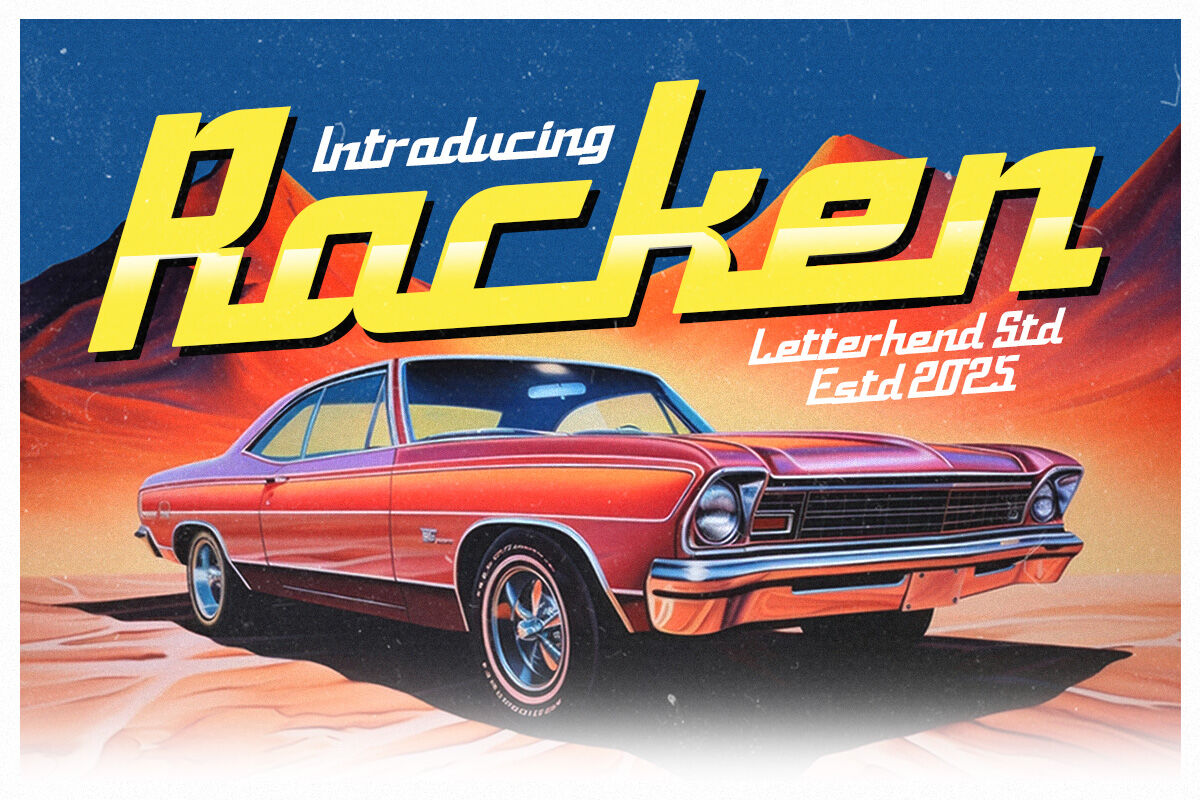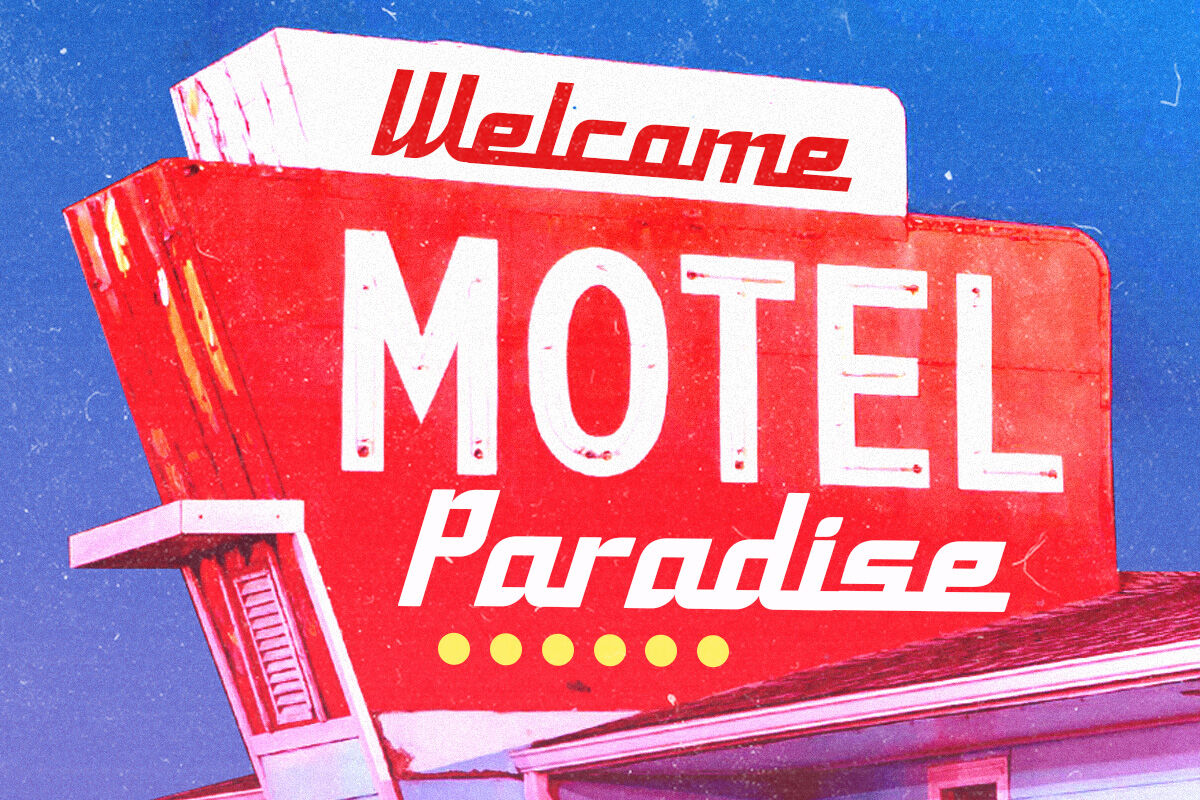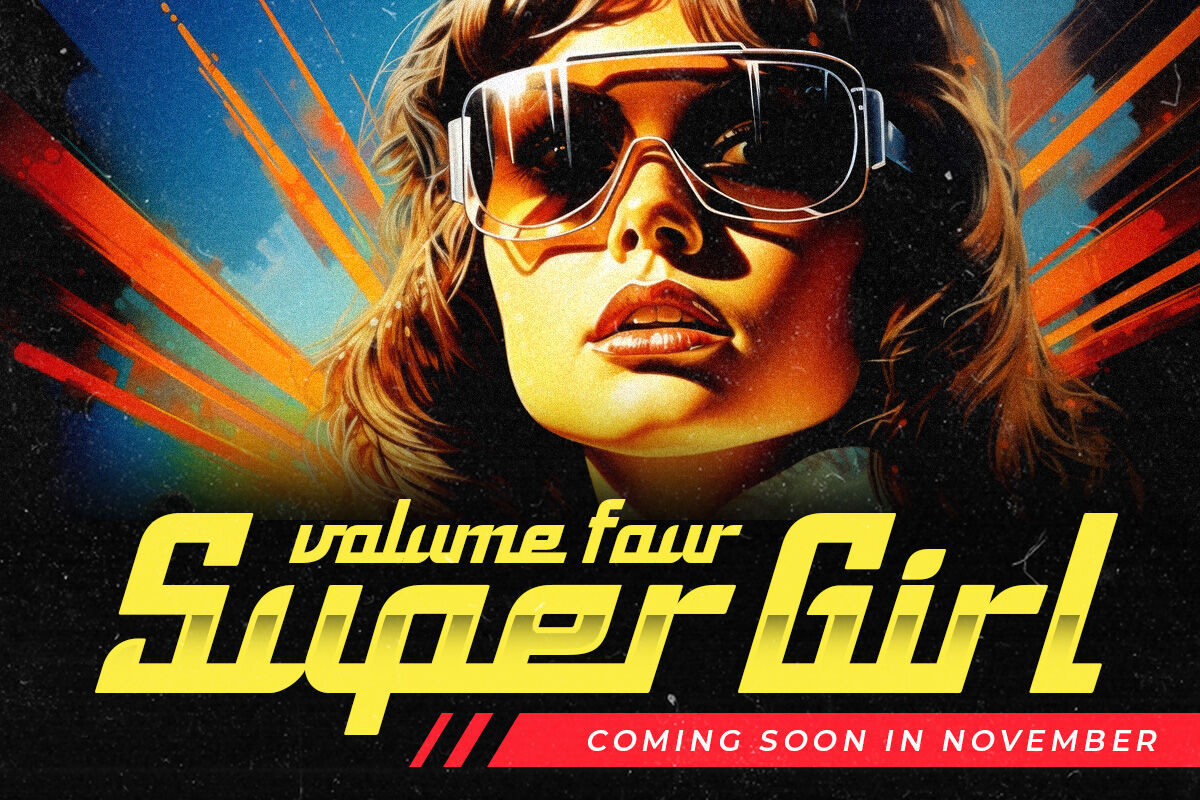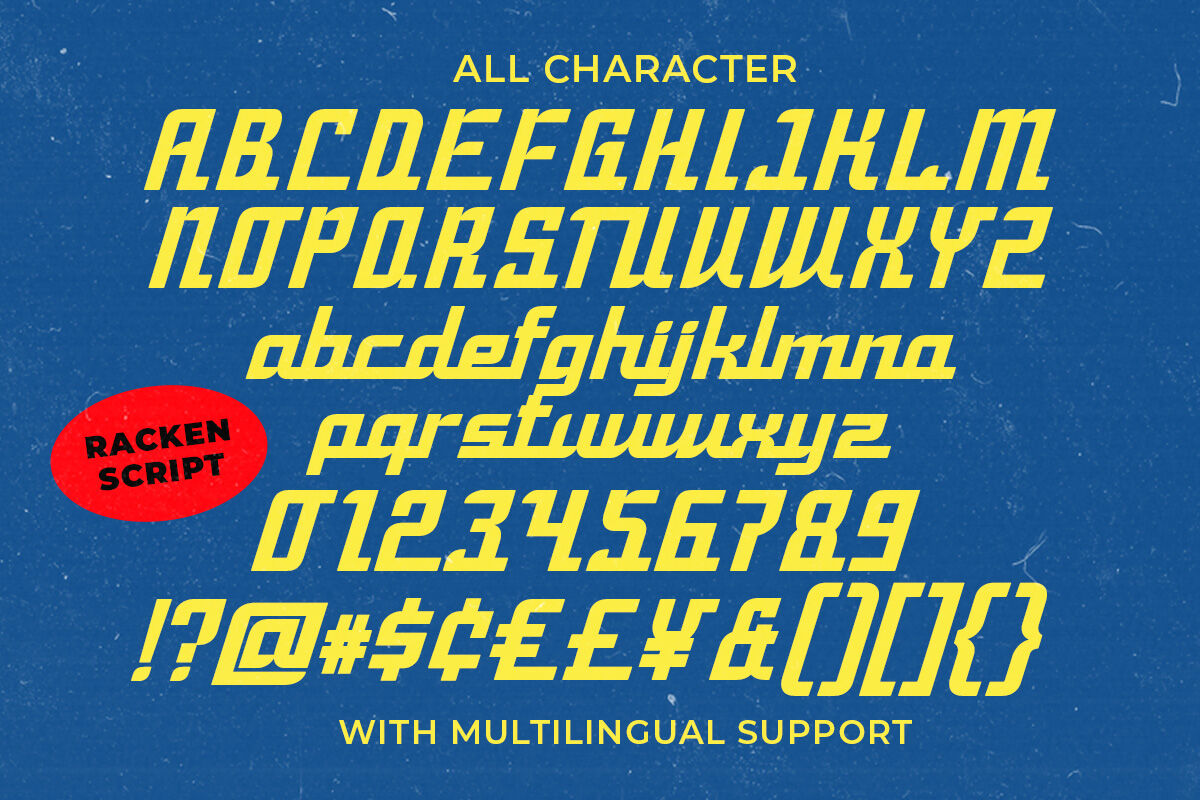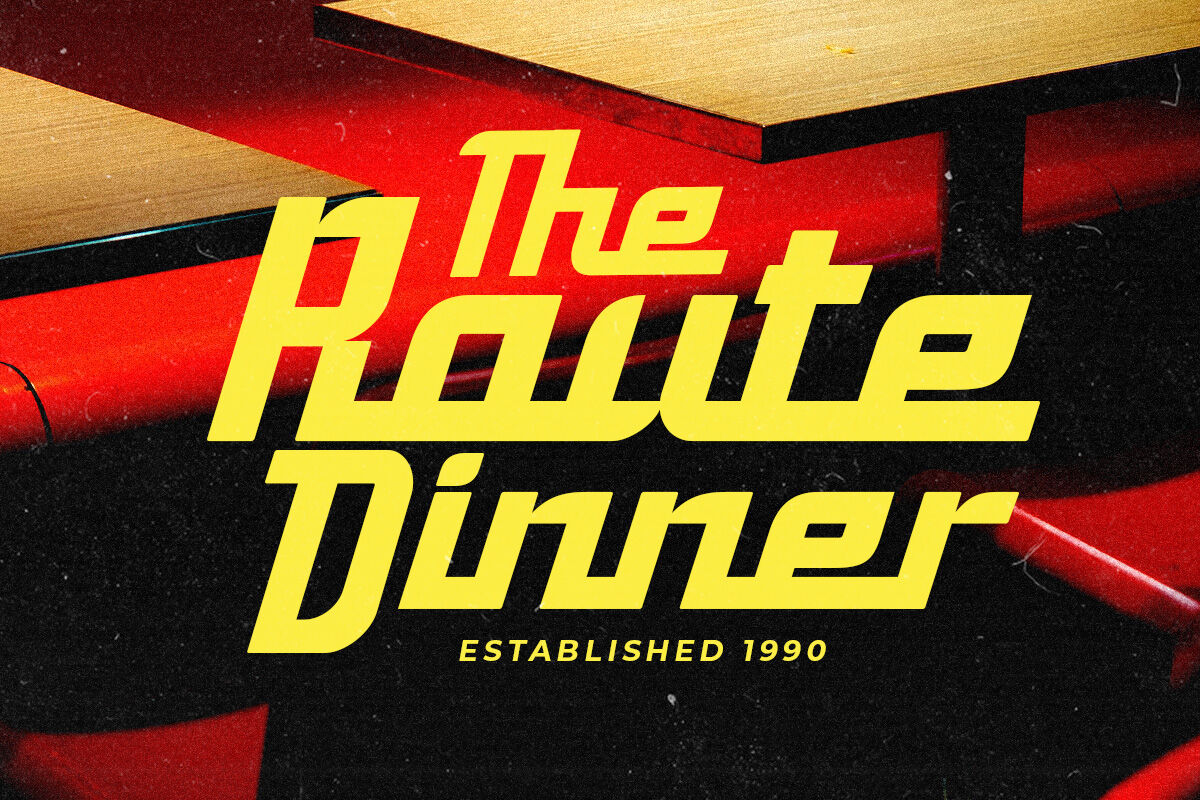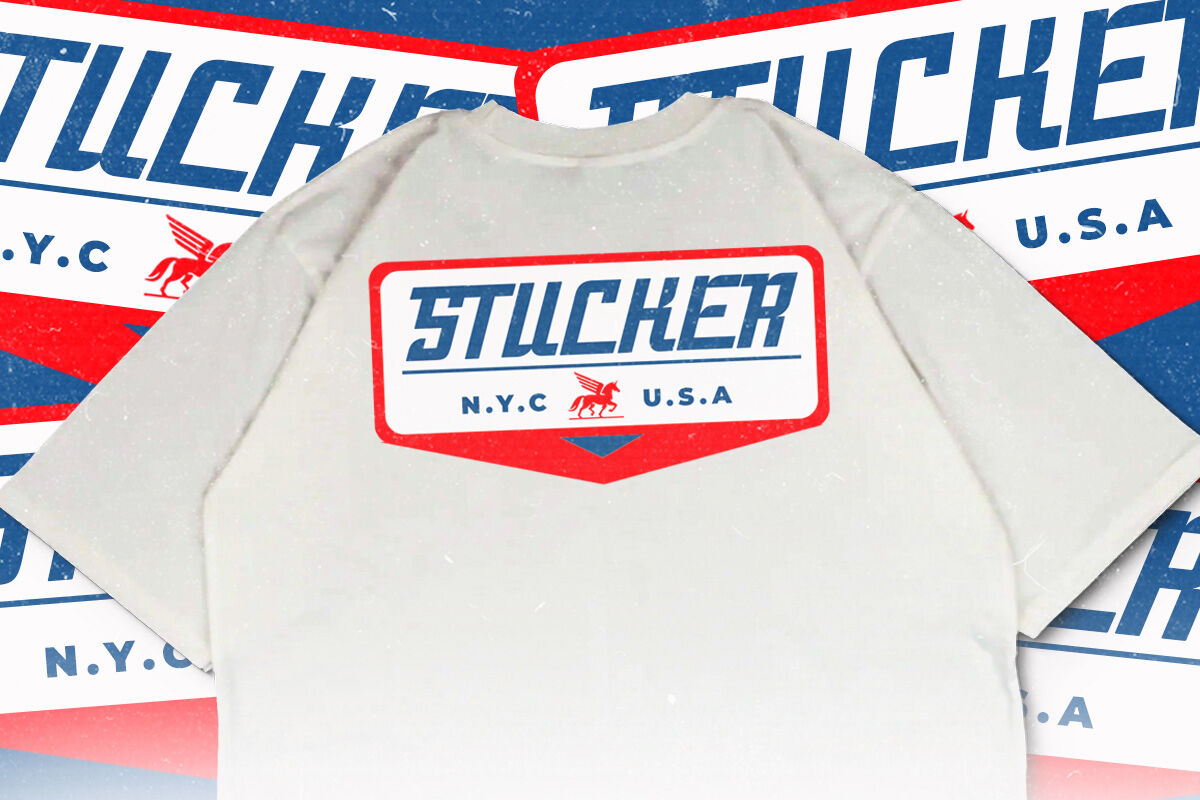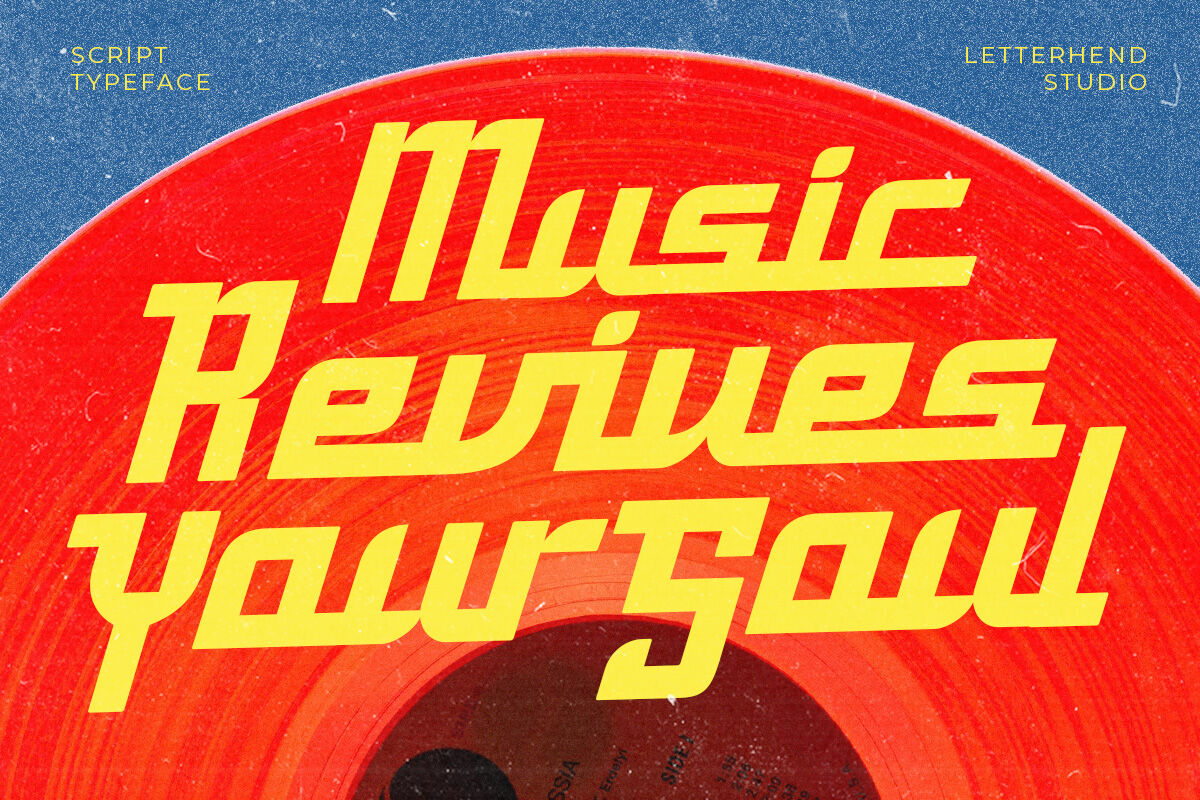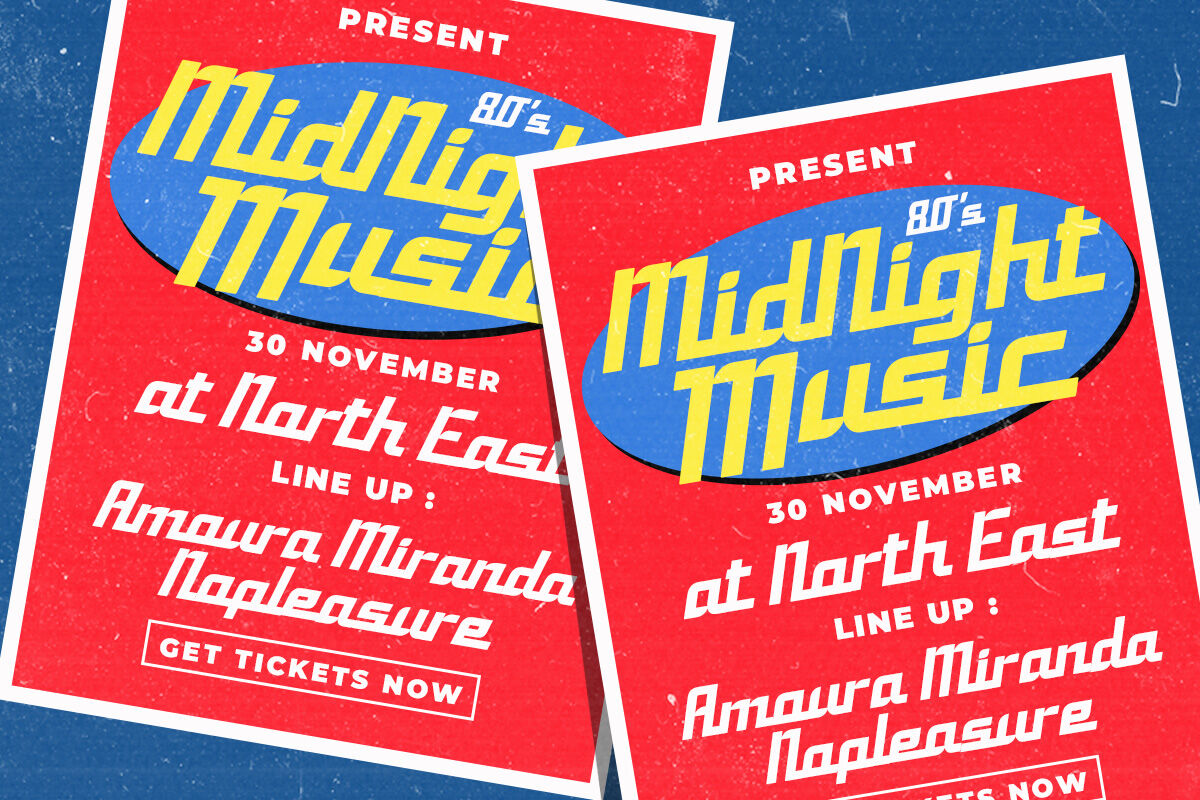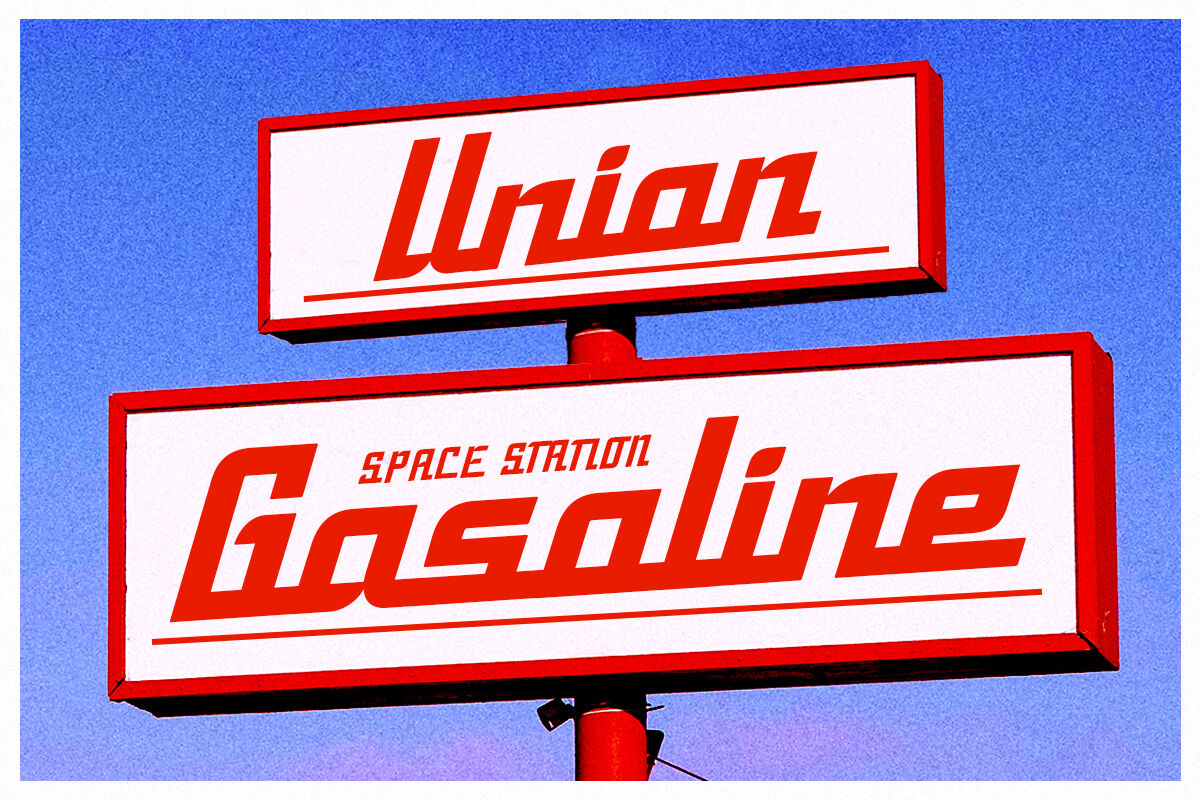
Racken Retro Futurism Display Font
Racken is a bold retro display font that captures the thrilling energy of vintage muscle cars and 80s speed aesthetics. With its sharp edges, slanted form, and dynamic letter shapes, Racken brings a sense of motion and power to every design. Perfect for projects that needs a bold and nostalgic punch. Features : Uppercase & lowercase Numbers and punctuation Alternates & Ligatures Multilingual Support PUA encoded Not sure if our font is right for your project? You can try it first with our "Type Tester" on the website, where you can preview all glyphs and special characters before buying. Check out this quick guide: www.letterhend.com/blog/using-alternate-character-in-type-taster/ If you encounter any technical issues, please refer to our QUICK HELP, available at this link: https://docs.google.com/document/d/e/2PACX-1vRPfENF30-kIQYFXVgWObdfAg4koF-UL5b_dFNlxa2YT_V9bx8Gs5KuZHJkkSU60IsRpwBdyveN9rYT/pub For feedback and any other question, please contact our support team at admin@letterhend.com  For business collaboration inquiries, please contact us at letterhend@gmail.com. We'll be happy to help you.